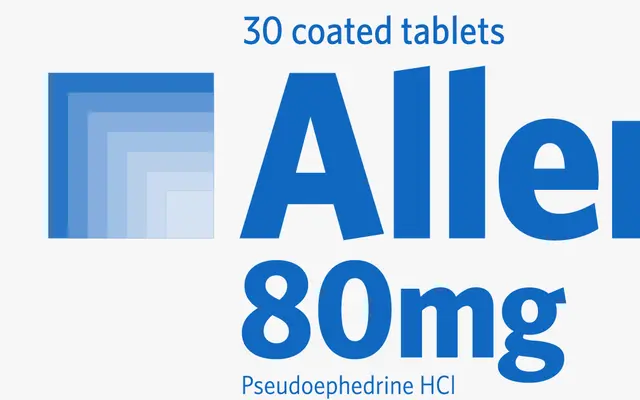
Whitney Narrow
Hoefler & Co · Tobias Frere-Jones · 2010
The narrow cut of Whitney, saving space without looking compressed for editorial, signage and information design.
A narrow humanist sans by Tobias Frere-Jones that sits between Whitney and Whitney Condensed in the family system. Six weights from Light to Black with matching italics. Used where designers want to fit more words on a line or a sign without slipping into a visibly condensed voice, particularly in editorial mastheads, museum labels and financial documents.
H&Co frame Whitney Narrow as an intermediate width sitting between the standard Whitney and Whitney Condensed, designed to save space without the visible compression of the Condensed cut.